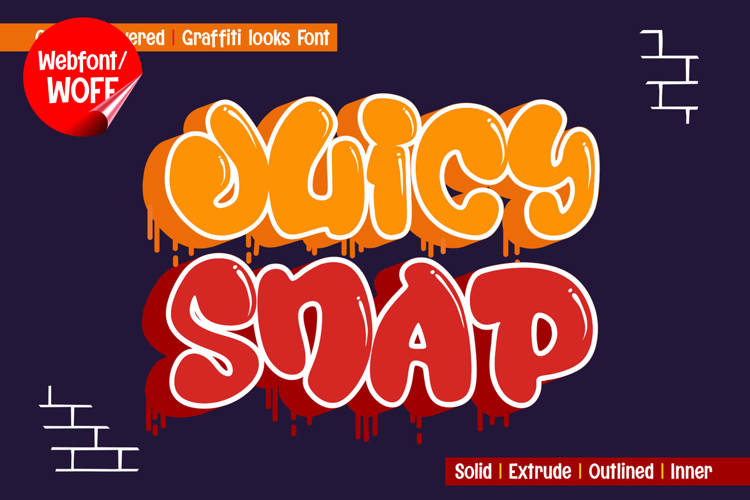
Juicy Snap | Chubby 3D Layered Graffiti Webfont for Bold Fun
Juicy Snap is a chubby 3D layered graffiti webfont designed to bring bold energy, playful volume, and vibrant street style into modern website design. Inspired by bubble graffiti and thick throw-up lettering, this font features rounded shapes combined with dimensional layering that creates a soft yet powerful visual presence. It is an excellent choice for projects that aim to deliver a fun, eye-catching, and highly expressive typographic identity.
Juicy Snap includes a complete set of uppercase characters designed with chubby graffiti forms enhanced by 3D layered effects. The thick, rounded shapes give the font a friendly and bold personality, while the layered construction adds depth and visual impact. These characteristics make it ideal for headlines, banners, hero sections, and featured content where a playful yet strong typographic style is needed.
In addition to letters, the font includes numbers and punctuation, allowing flexible usage across various parts of a website. It works well for promotional text, product highlights, event announcements, branding elements, and call-to-action sections. Each character maintains a consistent chubby graffiti style, ensuring a cohesive and unified visual identity throughout the layout.
With multilingual support, Juicy Snap includes a wide range of accented characters, making it suitable for international websites and global audiences. This allows content to be displayed clearly across different languages while preserving the bold and bubbly aesthetic.
The chubby 3D layered graffiti style of Juicy Snap makes it especially suitable for urban-themed websites, streetwear brands, music platforms, kids-related content, gaming interfaces, and creative portfolios. Its rounded and dimensional design adds personality and charm, helping websites stand out in visually competitive environments. The soft yet bold structure creates a perfect balance between fun and impact.
Despite its thick and decorative appearance, Juicy Snap is designed with readability in mind. The spacing and proportions are carefully balanced to ensure clarity, particularly in display sizes. This makes it effective for impactful headings and short content elements where both style and usability are important.
Juicy Snap is a webfont that combines graffiti aesthetics with chubby forms, layered depth, and modern digital performance. Its rounded shapes, vibrant character, and dimensional style create a distinctive typographic presence that enhances website design. For projects that require a bold, playful, and visually engaging graffiti font, Juicy Snap offers a strong and dynamic solution.